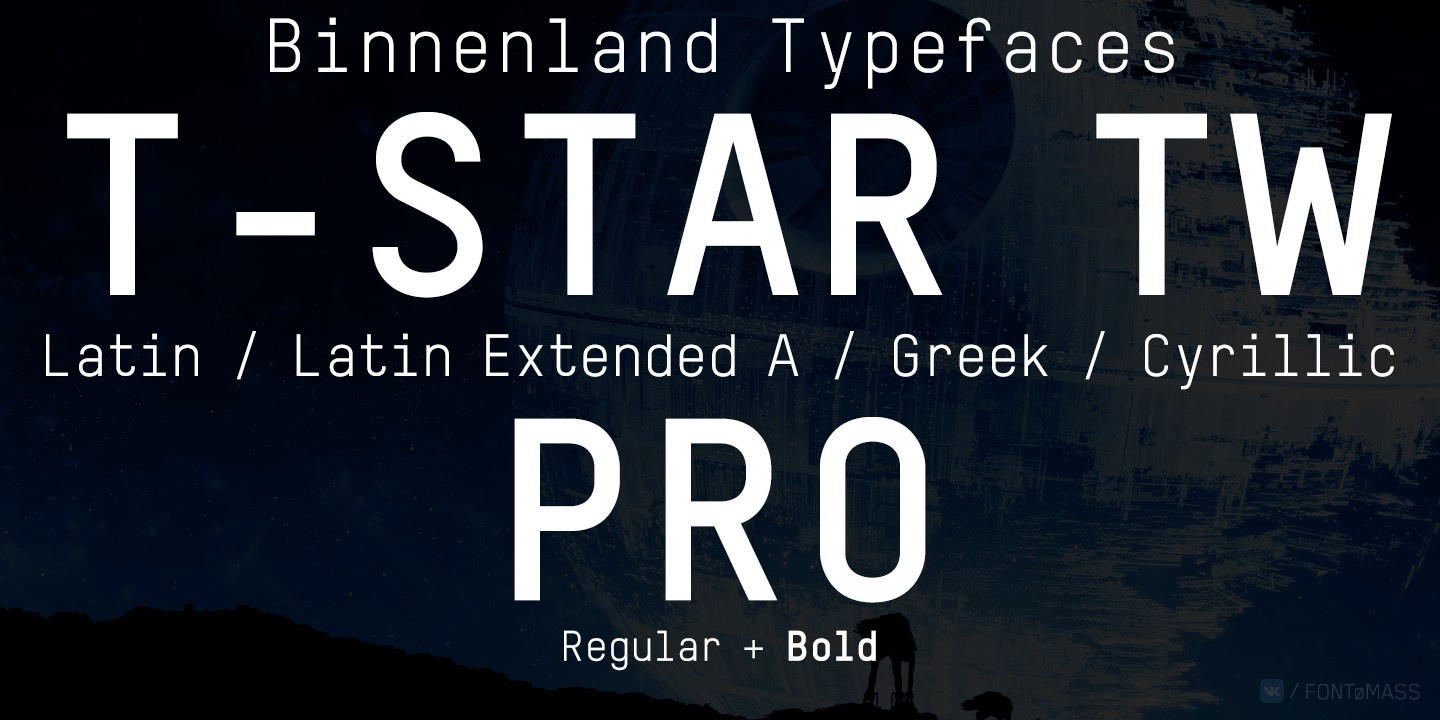
T-Star TW Pro Font
This font is perfect for technology startup branding, software interface design, digital product logos, innovative app development, modern corporate identity, tech conference materials, futuristic advertising campaigns, and cutting-edge digital platforms.
The T-Star TW Pro Font Free Download is exciting because it represents the pinnacle of technological sophistication with its precision-engineered letterforms and innovative design that perfectly captures the dynamic energy of modern digital innovation.
The T-Star TW Pro font family includes thin, light, regular, medium, semibold, bold, and black weights, along with condensed and extended variations, providing designers with extensive typographic flexibility for creating comprehensive tech-focused brand systems.
Whether you're developing materials for emerging technology companies, digital transformation projects, or innovative software solutions, the T-Star TW Pro Font delivers exceptional modernity and technical precision. Its meticulously designed characters showcase perfect harmony between futuristic aesthetics and practical functionality, making it ideal for both user interface elements and corporate communications. The font's progressive character communicates innovation and expertise, making it particularly valuable for brands operating at the forefront of technological advancement. Professional designers appreciate its superior performance across digital devices and its seamless integration with contemporary design workflows. The typeface's forward-thinking design reflects the cutting-edge nature of modern technology while ensuring accessibility for global audiences. From mobile applications to corporate presentations, this font adapts brilliantly to any high-tech environment. The T-Star TW Pro Font Free Download provides remarkable value for designers seeking typography that embodies the future of digital communication. Its versatile nature allows technology brands to communicate complex innovations with clarity and confidence. The font's optimized digital performance and professional construction make it an essential tool for organizations driving technological progress and shaping tomorrow's digital landscape through innovative design solutions.